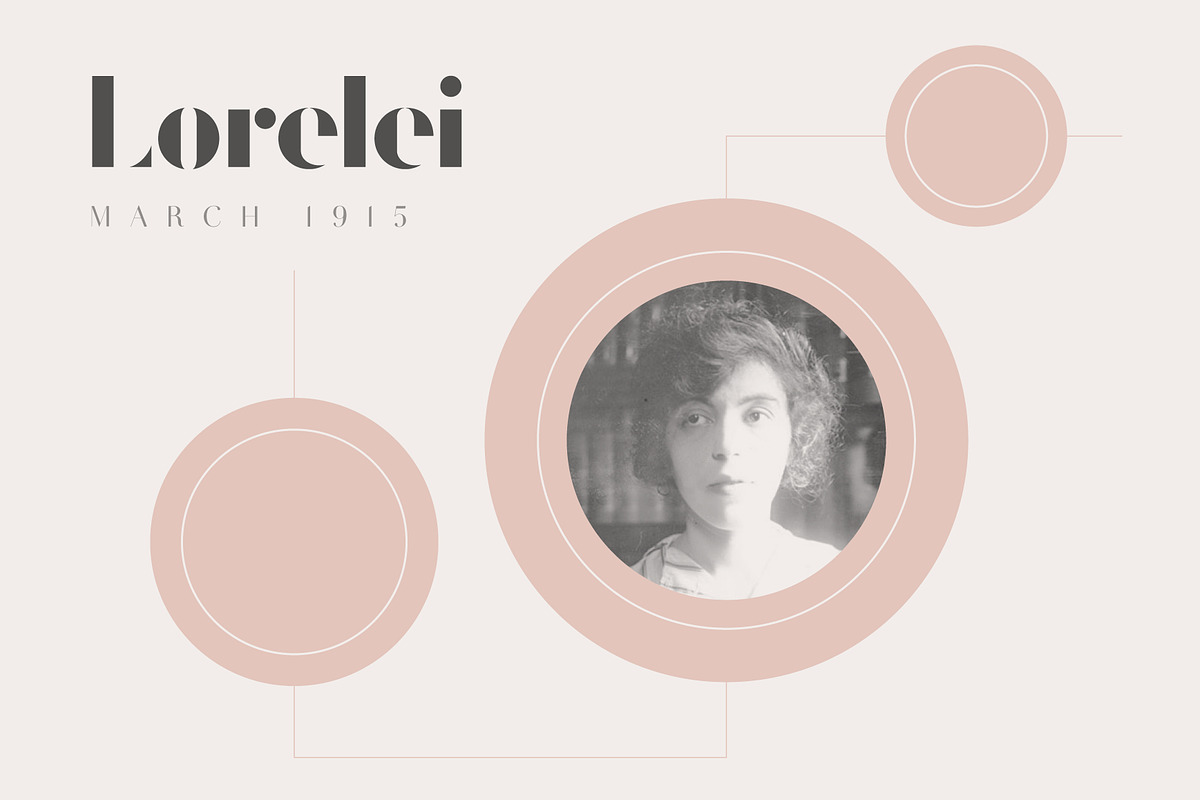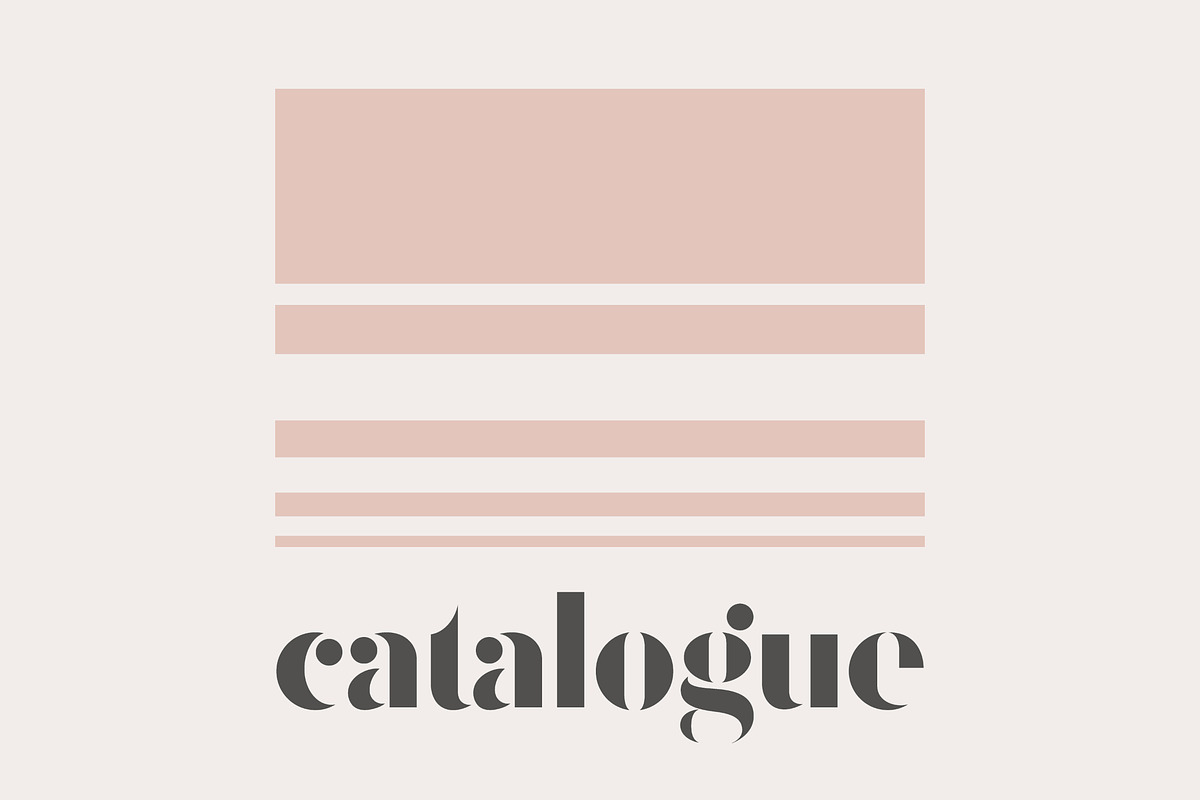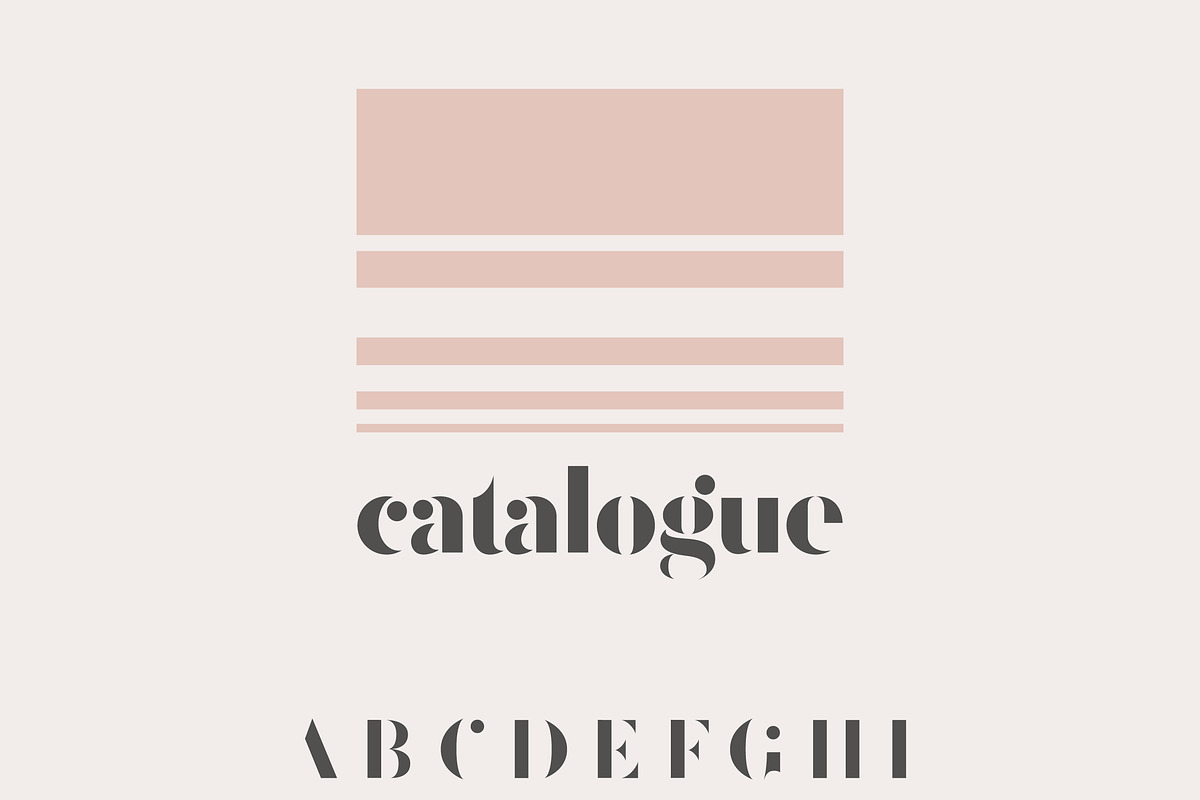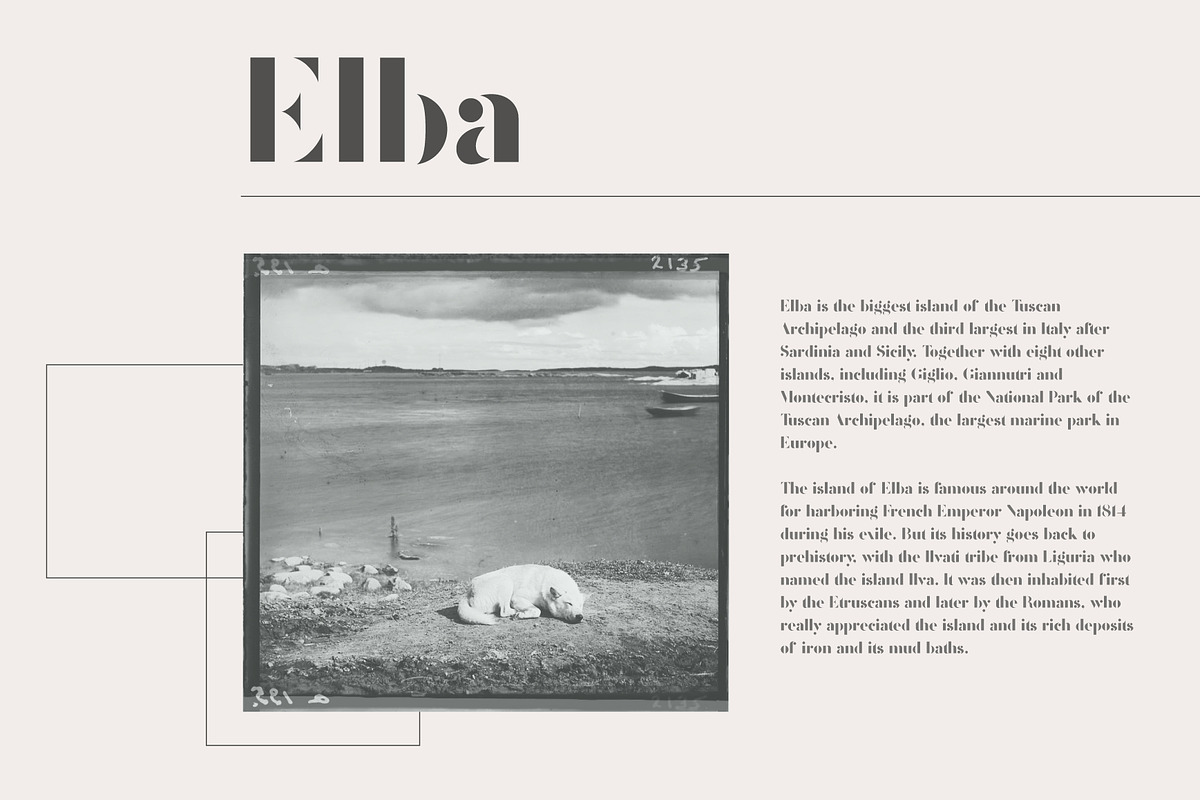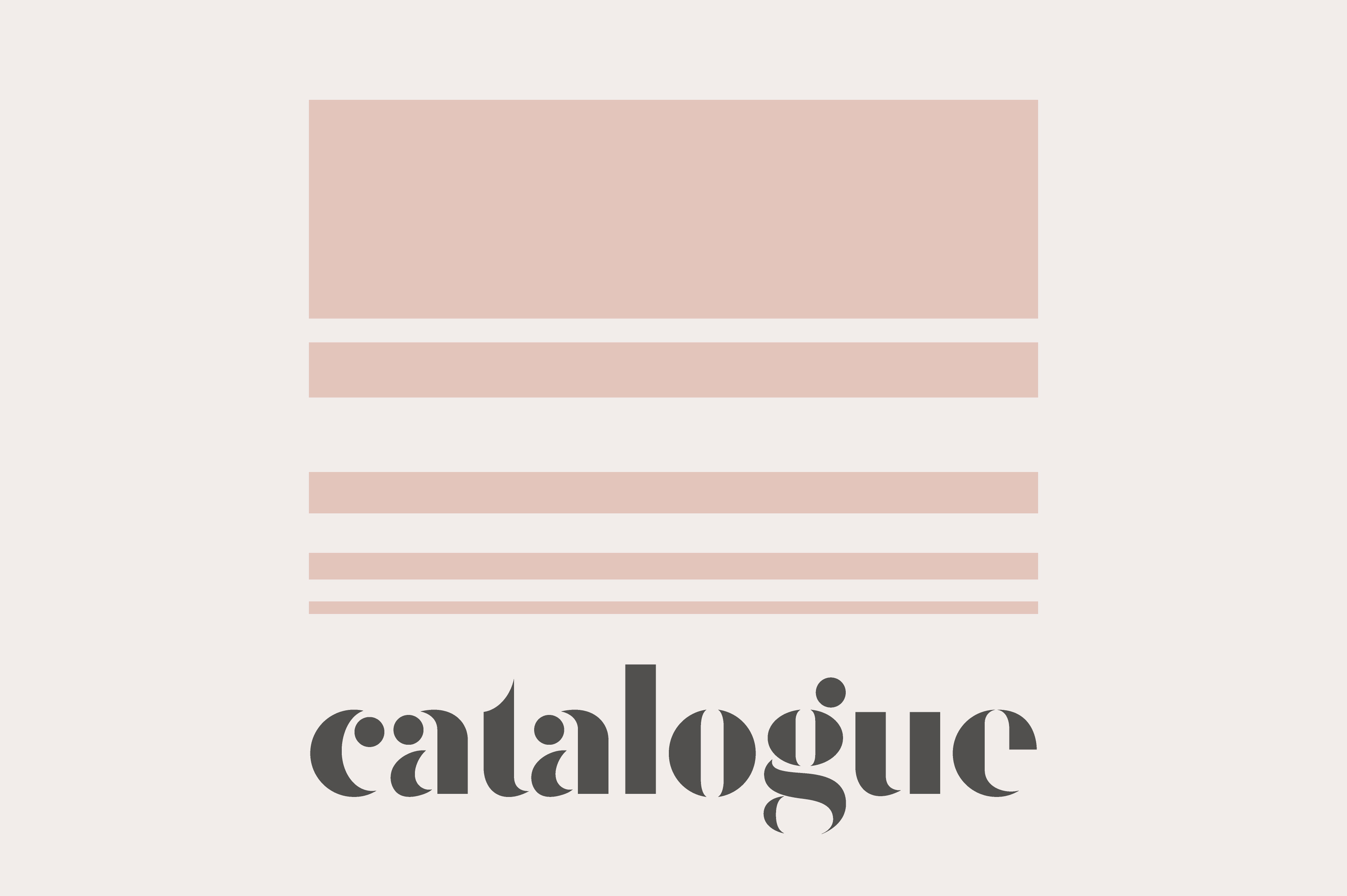
Catalogue - A Minimal Typeface
Catalogue is a gorgeous display typeface designed for use in wordmarks, headlines, logos, and quotes. It's big, bold, and beautiful, and it's perfect for your minimalist projects. Choose Catalogue for projects that require an elegant, high-contrast typeface with a vintage flair, and start creating something beautiful today.
Uppercase Characters
Lowercase Characters
Multilingual support for various languages including: French, German, Spanish, Portuguese, Italian, Dutch, Finnish, Swedish, and more.